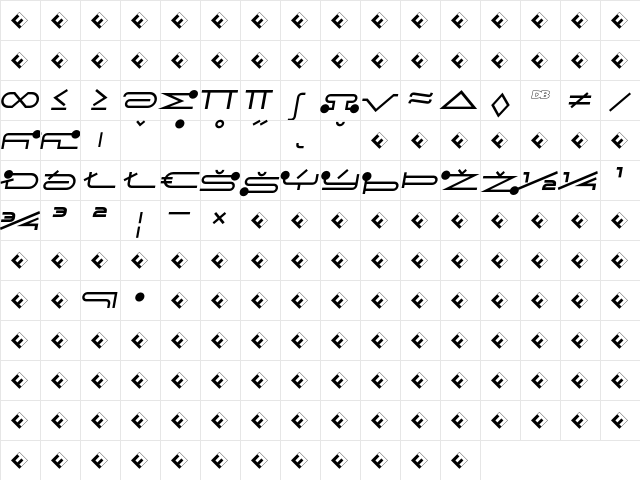
Droids ItalicExpert
Design Context for Droids Typeface
Droids takes a measured approach to typography — its balanced proportions and neutral character make it a reliable workhorse for both digital and print work. The dynamic lean of this cut emphasises speed and emphasis in any layout.
Pro Tip: Try Droids for annotation and caption copy alongside an upright companion — the contrast in angle creates a dynamic but ordered typographic system.